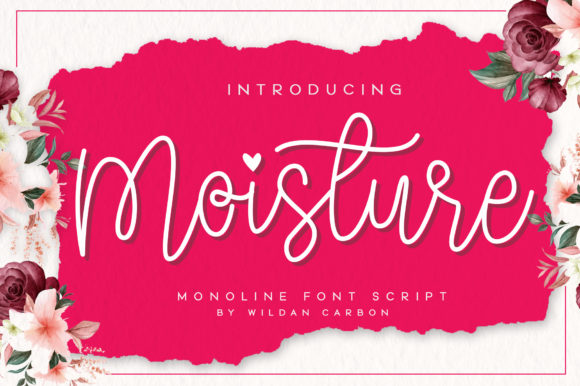
Welcome to the world of Moisture Font, a captivating handwritten script font that exudes elegance and sophistication. Immerse yourself in the delicate curves and graceful strokes that will transform your digital creations into breathtaking works of art.
Crafted with meticulous care by Wildan Type, Moisture Font embodies the essence of luxury and charm. Whether you're a seasoned designer or just starting your creative journey, this font is your key to unlocking a world of endless possibilities.
Experience the versatility of Moisture Font as it seamlessly adapts to a myriad of design projects. From enchanting invitations and heartfelt letters to captivating social media posts and eye-catching logos, Moisture Font adds a touch of magic to every word you write.
Unleash your creativity and let your imagination run wild as you explore the boundless potential of Moisture Font. Capture the essence of timeless beauty with its flowing lines and intricate details. Let your words dance across the page, leaving a trail of elegance and sophistication.
With Moisture Font, you'll discover a font that transcends the ordinary. Its unique feel and stunning impact will leave a lasting impression on your audience, whether you're crafting a personal note, designing a stunning website, or creating marketing materials that demand attention.
Take your designs to new heights with Moisture Font. Its PUA encoding ensures effortless access to a treasure trove of amazing glyphs and ligatures, empowering you to add depth, dimension, and character to your projects.
Elevate your digital creations with Moisture Font. Its timeless appeal and versatility make it an indispensable tool for designers of all levels. Embark on a creative journey where every word you write becomes a masterpiece, leaving a lasting impression on all who encounter it.